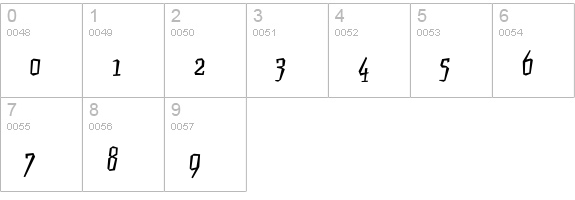
JacqueSlim Font Details
Introducing JacqueSlim, a sleek and modern font that exudes elegance and sophistication. With its slim and slender letterforms, JacqueSlim adds a touch of finesse to any design project. This font is perfect for branding, logos, headlines, and any other creative endeavor that calls for a stylish and refined typeface. JacqueSlim is not only visually captivating, but it also offers exceptional readability. Its carefully crafted letter shapes ensure that every word is easily legible, making it ideal for both print and digital mediums. Whether used in body text or as a headline font, JacqueSlim effortlessly delivers a professional and polished aesthetic. One of the standout features of JacqueSlim is its versatility. It seamlessly transitions from bold and impactful to subtle and understated, allowing designers to explore a wide range of creative possibilities. Its clean lines and balanced proportions make it a versatile choice for various design styles, from minimalist to high-end luxury. And the best part? JacqueSlim is available for free! Yes, you read that right! This stunning font can be freely downloaded at FontsMarket.com. Now, designers and creatives from all around the world can access this exceptional typeface without breaking the bank. So, whether you're a professional designer looking to elevate your projects or an aspiring creative seeking a font that stands out, JacqueSlim is the perfect choice. Download it today at FontsMarket.com and unlock the endless possibilities that this remarkable font has to offer.